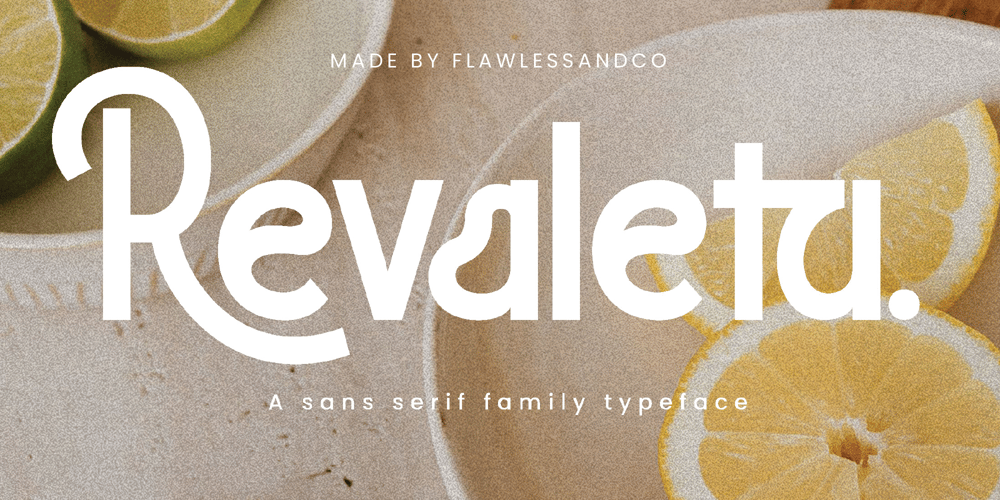
Revaleta Font Family was designed by Achmad Yani and published by Flawlessandco. Revaleta contains 7 styles and family package options. Introducing Revaleta, a sans serif font family that exudes sophistication and style. With its clean lines, geometric shapes, and subtle stroke variations, Revaleta is perfect for creating a modern and refined look for your branding, web design, and editorial projects. Revaleta consists of various weights ranging from thin to bold styles, including thin, extra light, light, regular, medium, semi-bold, and bold.There’s some connected letters and some alternates that suitable for any graphic designs such as branding materials, t-shirt, print, business cards, logo, poster, t-shirt, photography, quotes .etcThis font support for some multilingual. Also contains uppercase A-Z and lowercase a-z, alternate character, numbers 0-9, and some punctuation.If you need help, just write me! Thanks so much for checking out my shop!